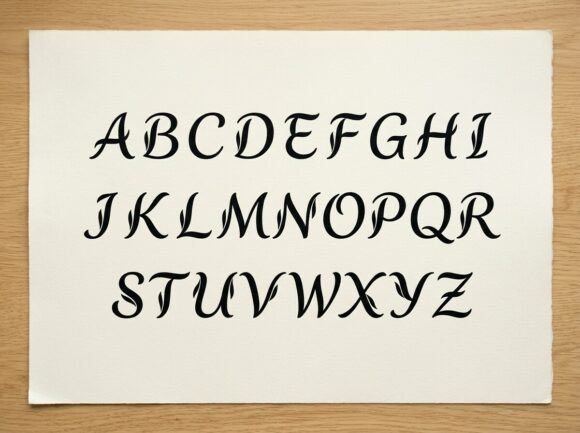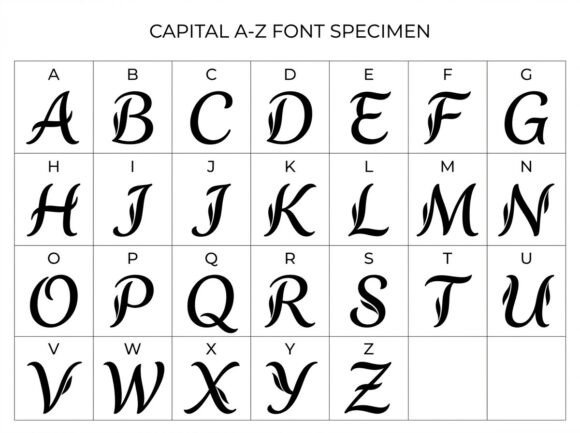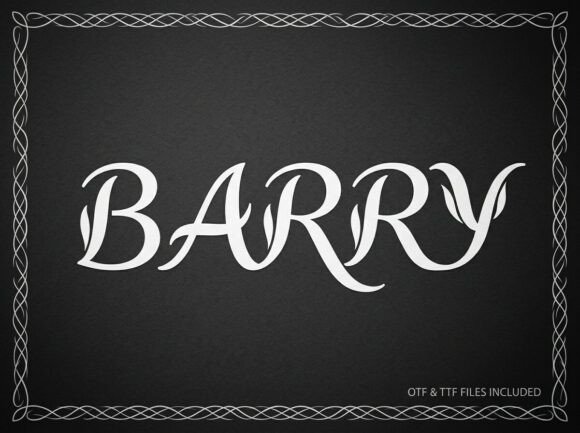
Introducing Barry Font: The Avant-Garde Decorative Display Font
Are you tired of using the same old fonts that seem to blend in with the crowd? Look no further than Barry Font, the ultimate decorative display font designed to make a statement. With its commanding visual personality and unique artistic flourishes, this typeface is perfect for creators who refuse to blend in.
What Makes Barry Font Stand Out
Barry Font is an avant-garde decorative display font engineered to be the focal point of any composition. Its strong, artistic soul is balanced by a high-end, polished finish, making it suitable for a wide range of applications, from luxury packaging to experimental editorial layouts.
One of the key features that sets Barry Font apart is its intricate craftsmanship. Every individual letter has been carefully crafted to act as a standalone work of art, ensuring that each one makes a lasting impression. By omitting lowercase characters, the designers have focused entirely on the uppercase letters, resulting in a font that is both visually striking and highly legible.
Ideal Applications for Barry Font
So, what can you use Barry Font for? The possibilities are endless, but here are some ideal applications:
- High-impact headlines: Make a statement with Barry Font’s bold, attention-grabbing headlines that are sure to turn heads.
- Signature logos & branding: Create a lasting impression with a custom logo or brand identity that showcases your unique style.
- Conceptual packaging: Elevate your product packaging with a luxurious, high-end font that reflects your brand’s personality.
- Poster & social media design: Add a touch of sophistication and elegance to your posters, social media graphics, and other visual materials.
Please note that Barry Font is an all-caps (uppercase only) display typeface. This means that it does not include lowercase characters, which allows the designers to focus on the intricate craftsmanship of every individual uppercase letter.
This unique approach ensures that each letter acts as a standalone work of art, making Barry Font perfect for applications where you want to make a bold statement.
If you’re looking for a font that will help you stand out from the crowd, look no further than Barry Font. With its commanding visual personality, unique artistic flourishes, and high-end polish, this avant-garde decorative display font is perfect for creators who refuse to blend in.